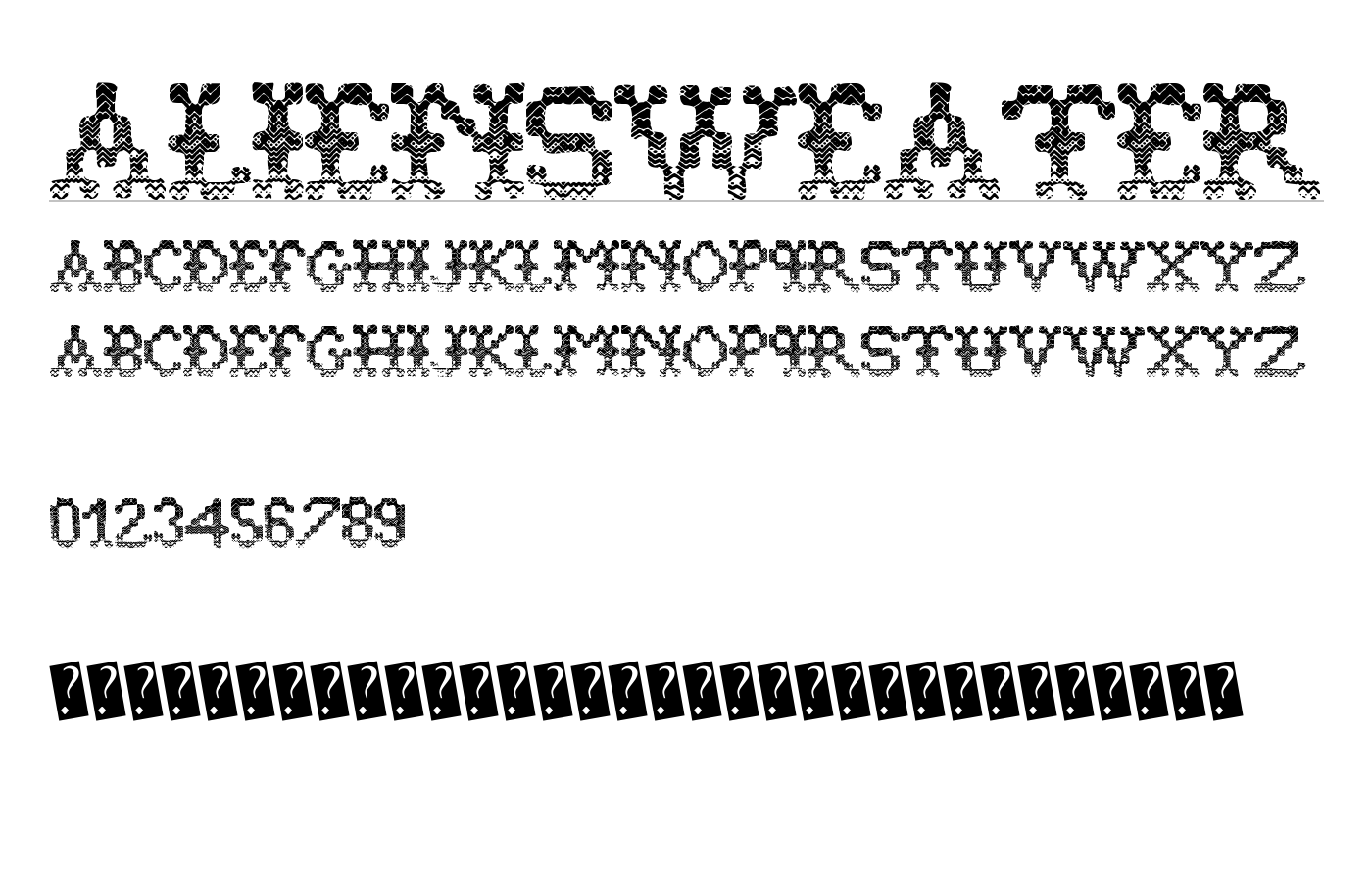
AlienSweater is a bold, decorative slab serif font featuring strong, blocky letterforms filled with intricate, textured patterns that create a knitted or woven effect. Its quirky and playful style makes it ideal for creative branding, headlines, and unique design projects where a distinctive, handcrafted look is desired. This font works best in eye-catching display use rather than body text, adding a fun, crafty personality to fashion, holiday, or niche product packaging.
AlienSweater Font
About AlienSweater Font
| Font family | AlienSweater Font |
| Designer | Max Infeld |